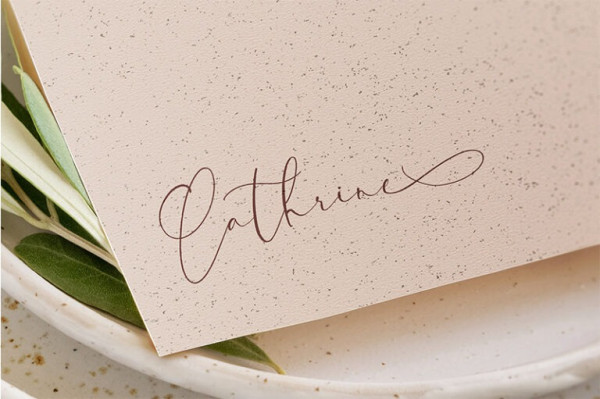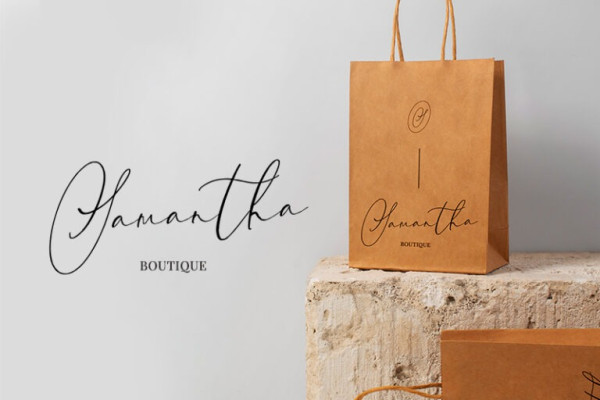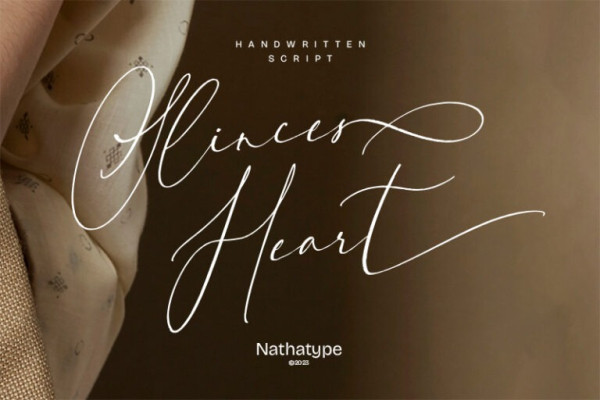
Slinces Heart Font
Slinces Heart Font is a captivating script font that beautifully captures the essence of cursive handwriting with a touch of romance. Each letter in Slinces Heart is meticulously crafted with fairly high line contrast, adding a dynamic and eye-catching quality to the font. The combination of thick and thin strokes creates a sense of fluidity and movement, enhancing the overall visual appeal.
The swinging endings in Slinces Heart add a flourish of creativity and uniqueness, making the script come to life with a touch of whimsy. With its smooth and flowing letterforms, SlincesHeart offers a natural and seamless writing style, evoking the warmth of handwritten love letters. For the best legibility you can use this font in the bigger text sizes. Enjoy the available features here.